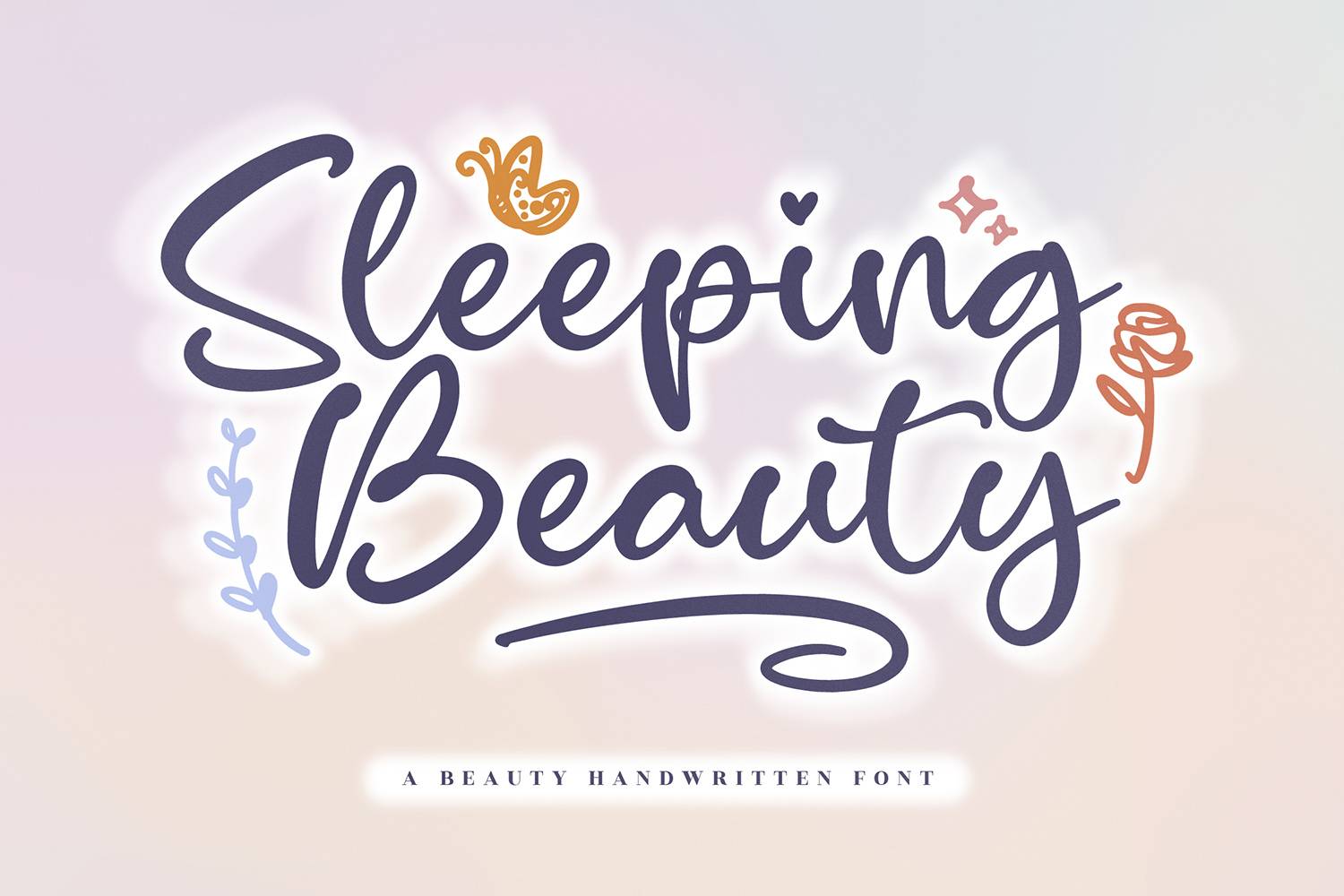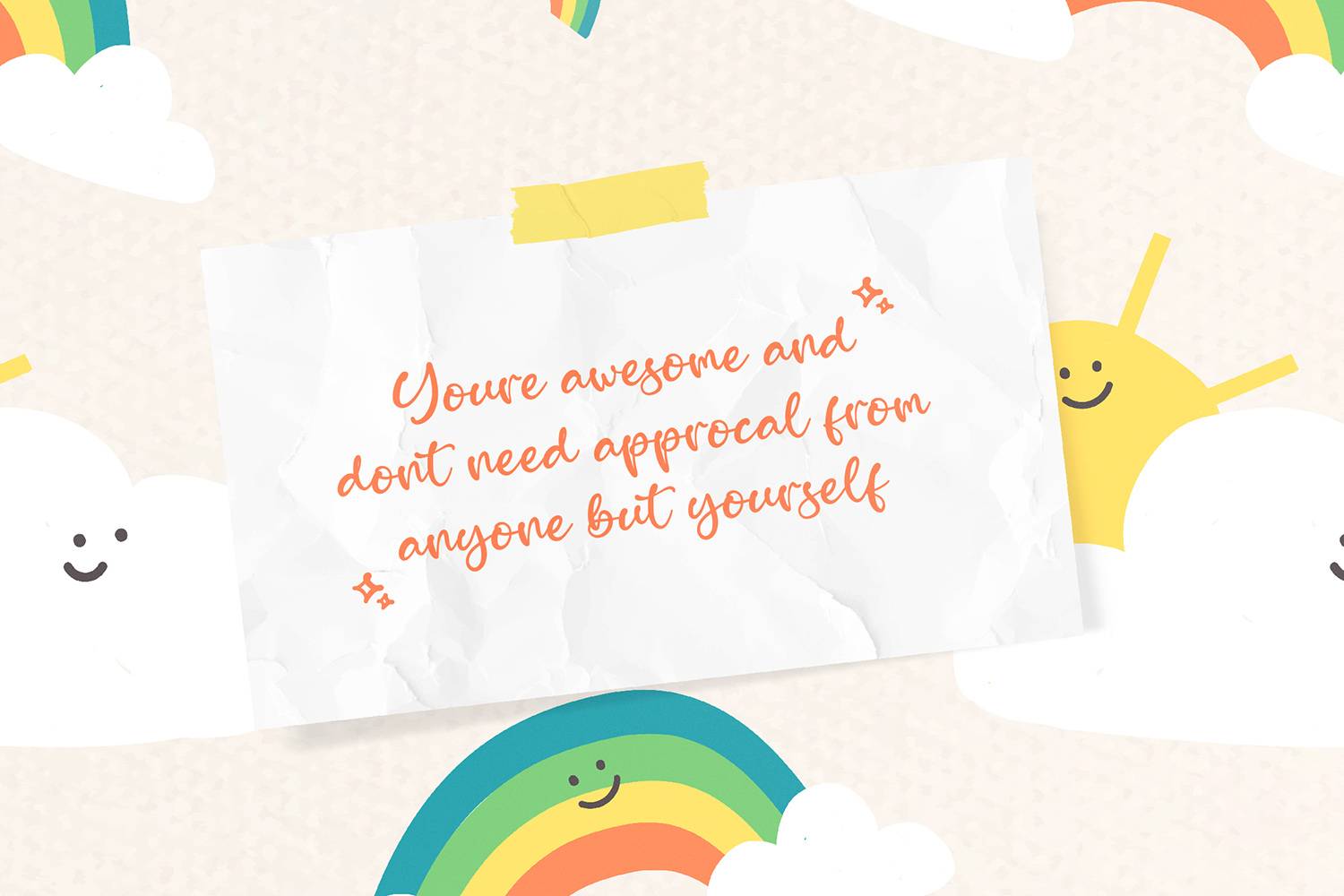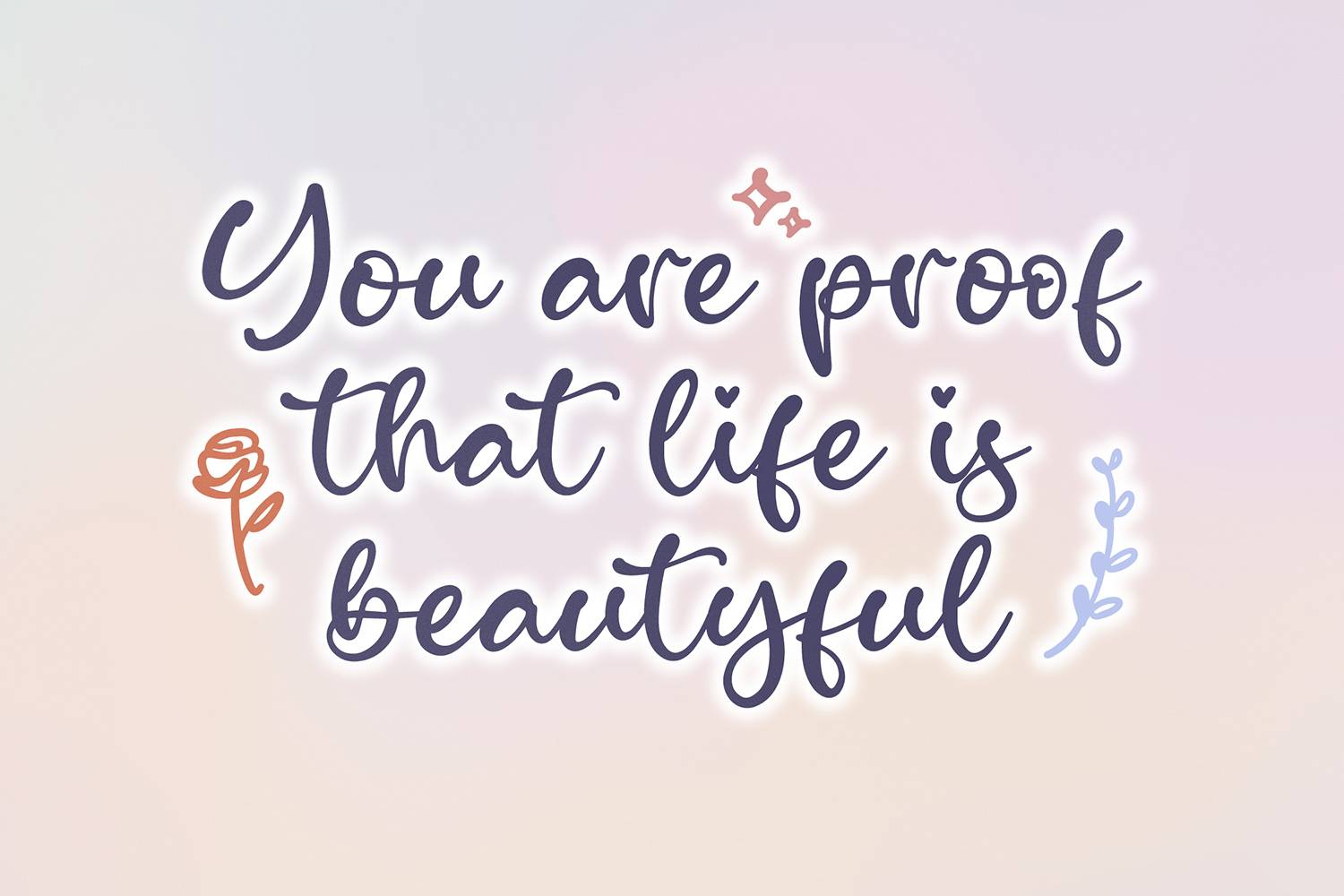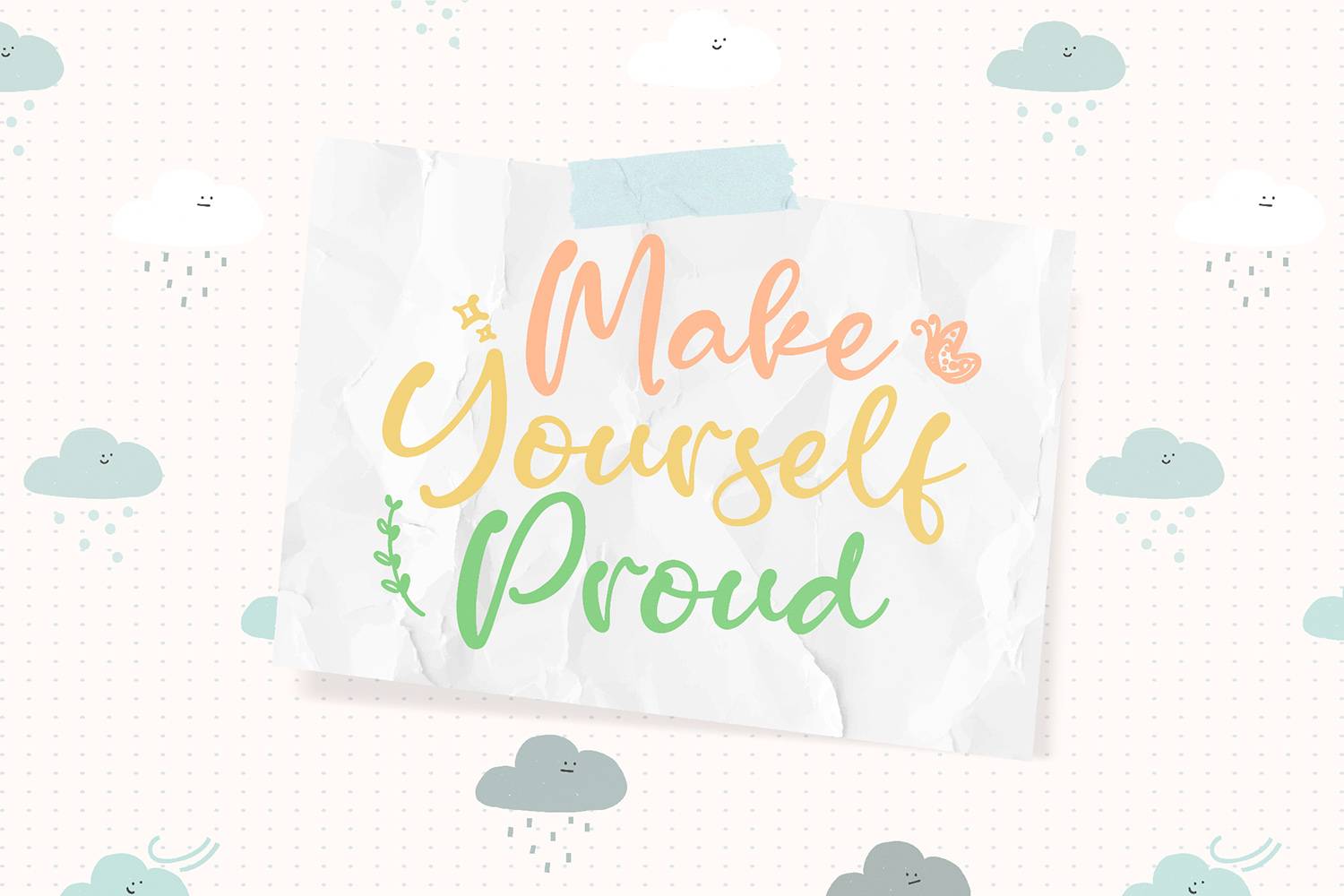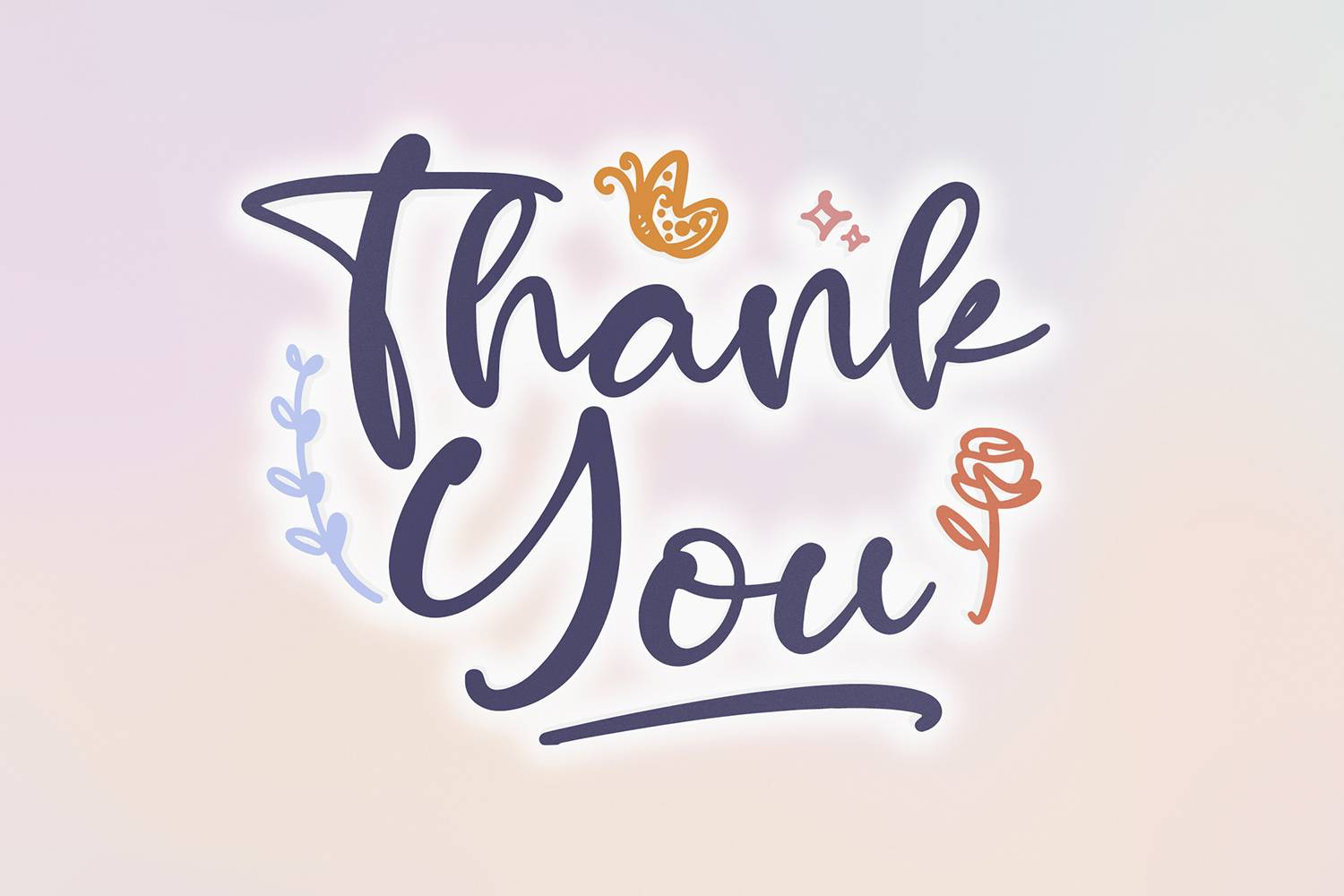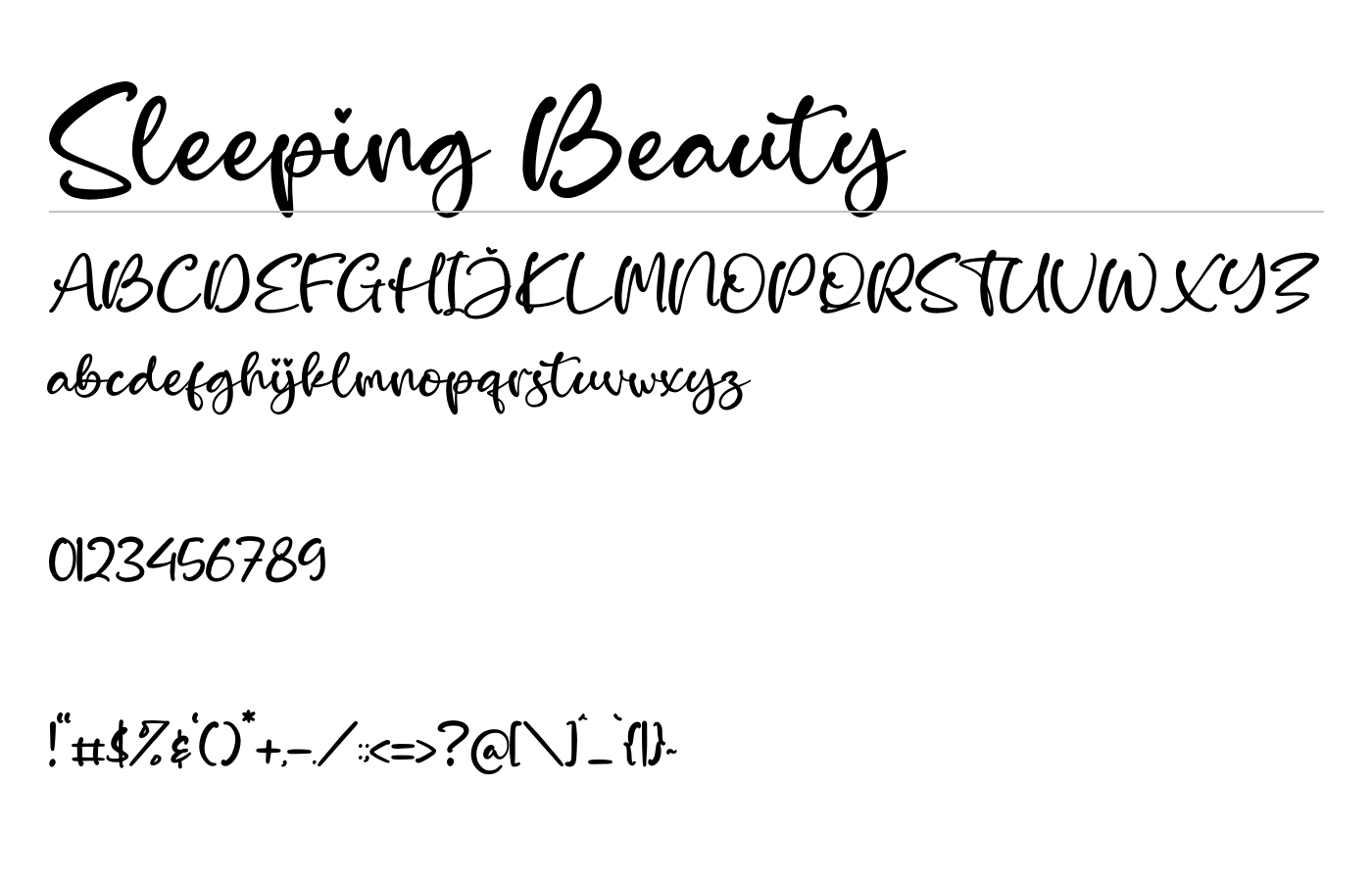
Sleeping Beauty is a playful and charming handwritten script font featuring smooth, flowing strokes with a casual, friendly feel. Its slightly uneven letterforms and whimsical details, like heart-shaped dots, give it a personal and warm character, making it ideal for creative branding, invitations, and lighthearted editorial projects. This font works well where a touch of informality and approachability is desired, adding a magical and delightful mood.
Sleeping Beauty Font
About Sleeping Beauty Font